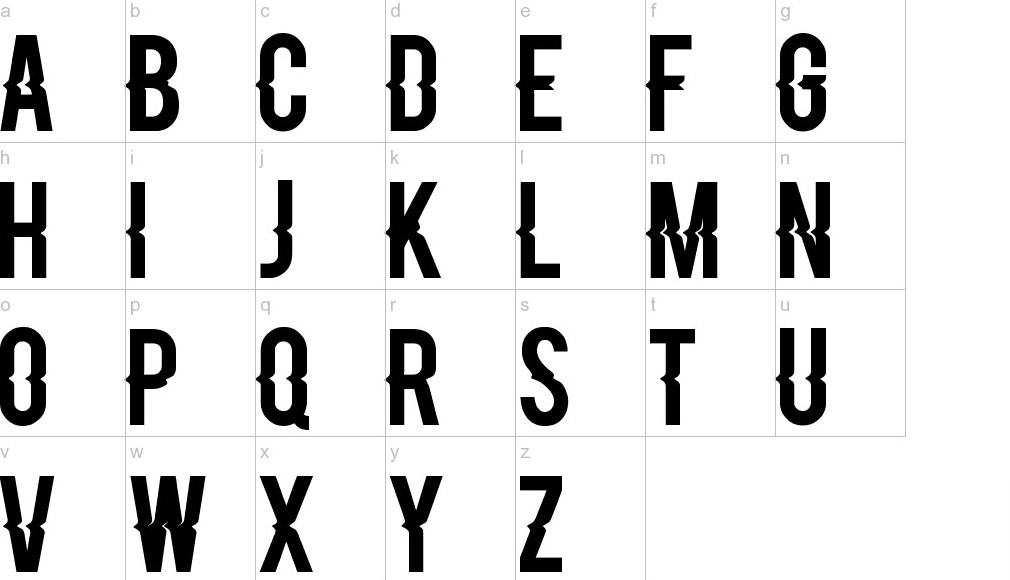
Blacklisted Font features stunning decorative glyphs created by Jayde Garrow. This font includes unique characters in both uppercase and lowercase. The font showcases clean and easily readable characters with various stylistic sets and alternate options. Additionally, it offers a wide array of impressive and distinctive glyphs to help you effortlessly create captivating projects with precision.
The font contains easily readable characters that may easily use this brilliant typeface font that is best for pairing with Helena font for ambitious headings, ebook covers, brand designs, precise emblems, and so on.